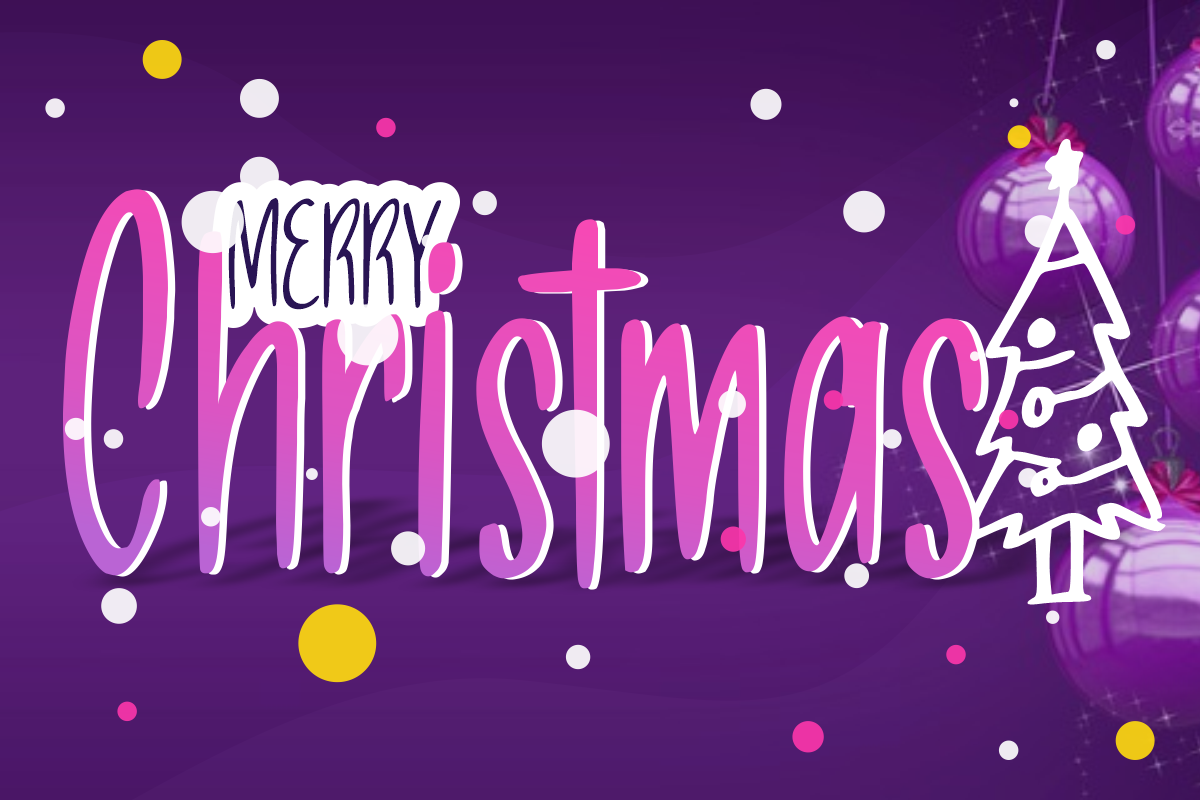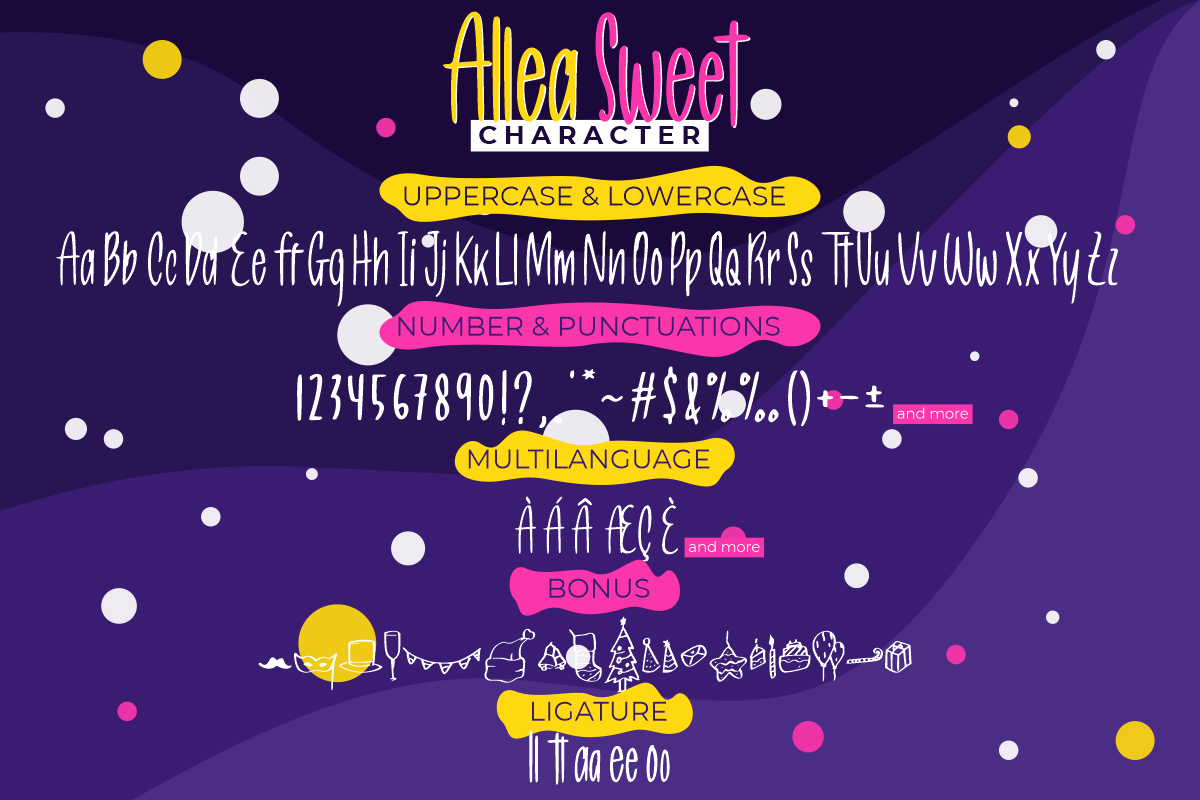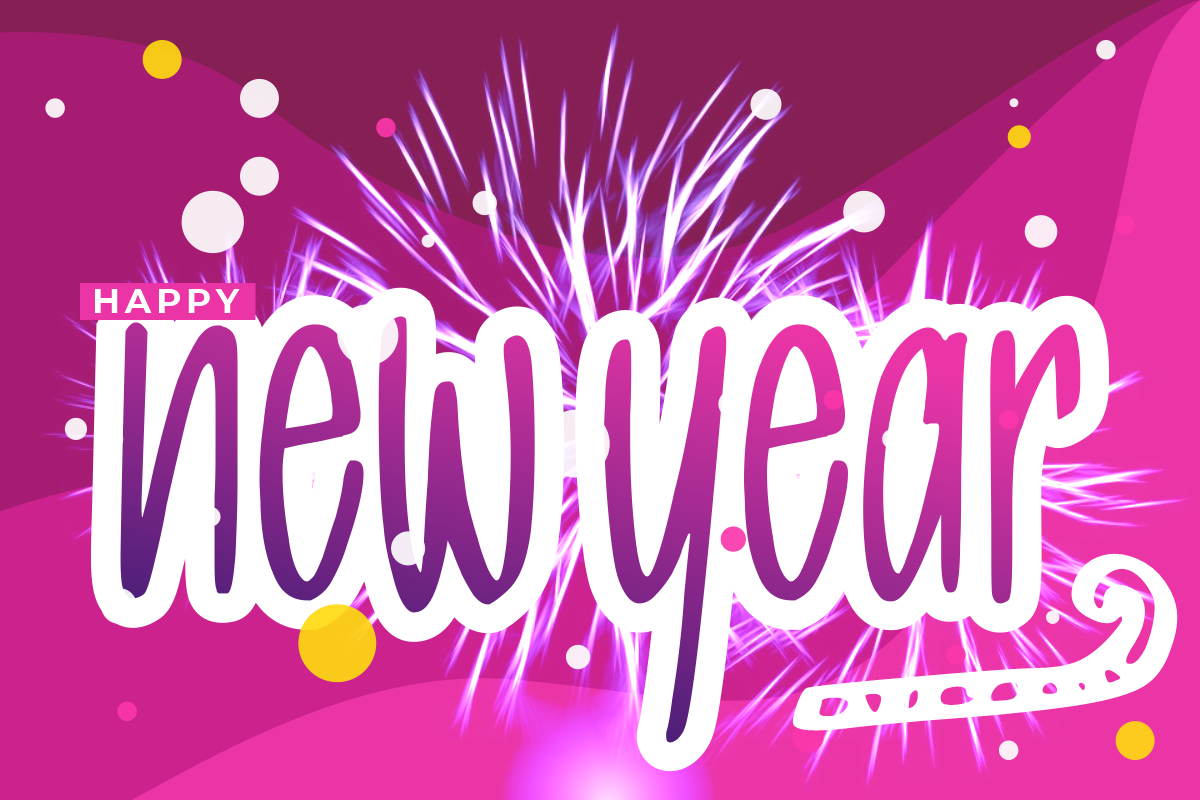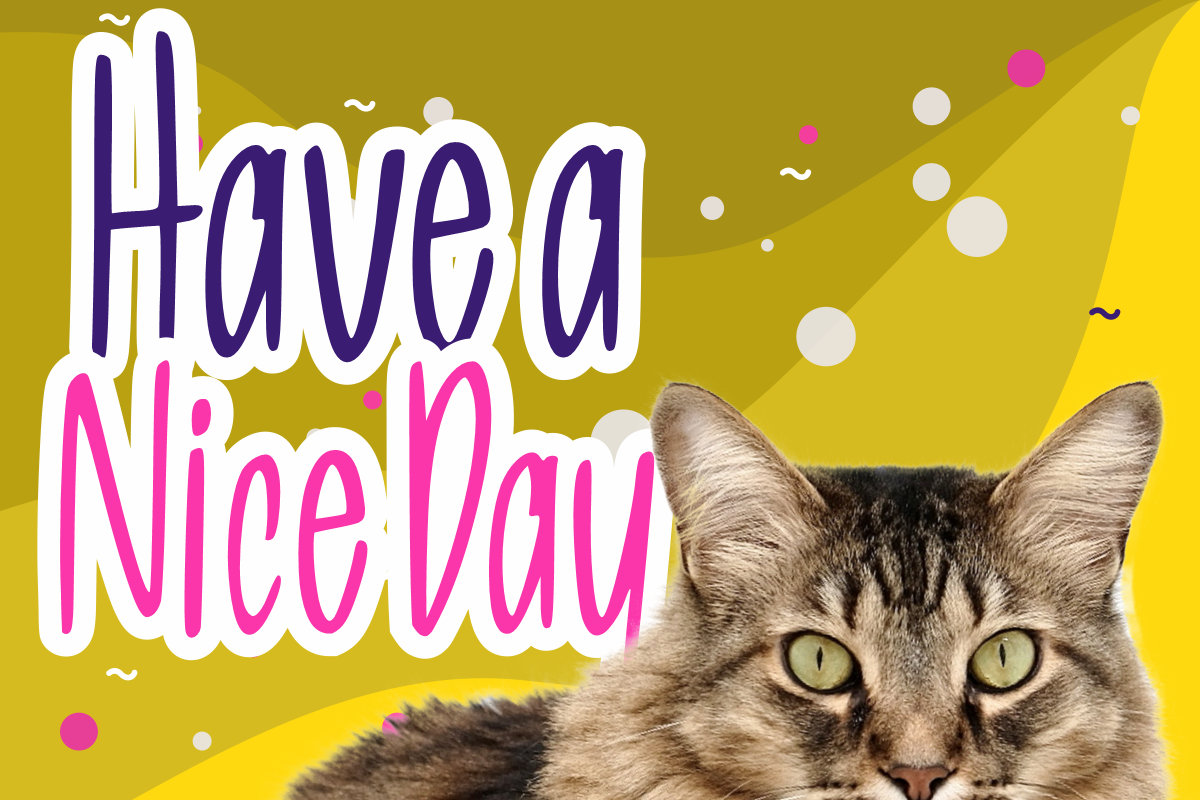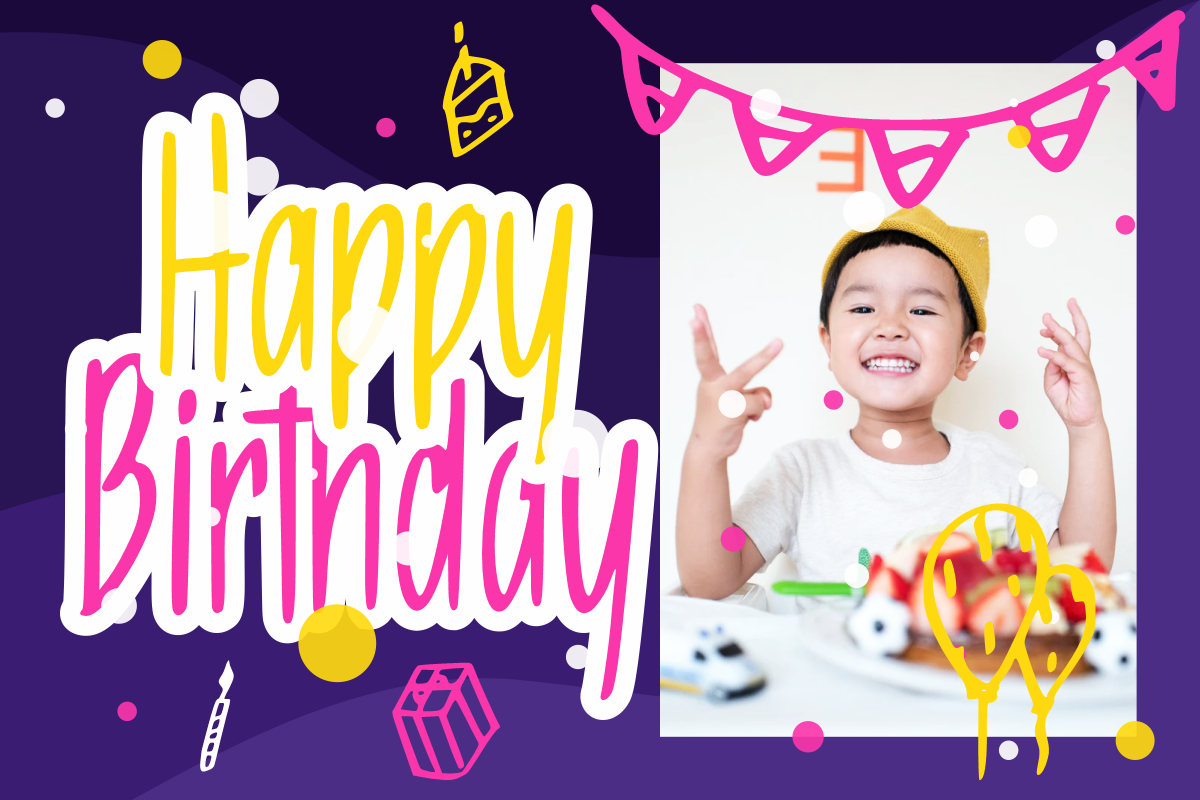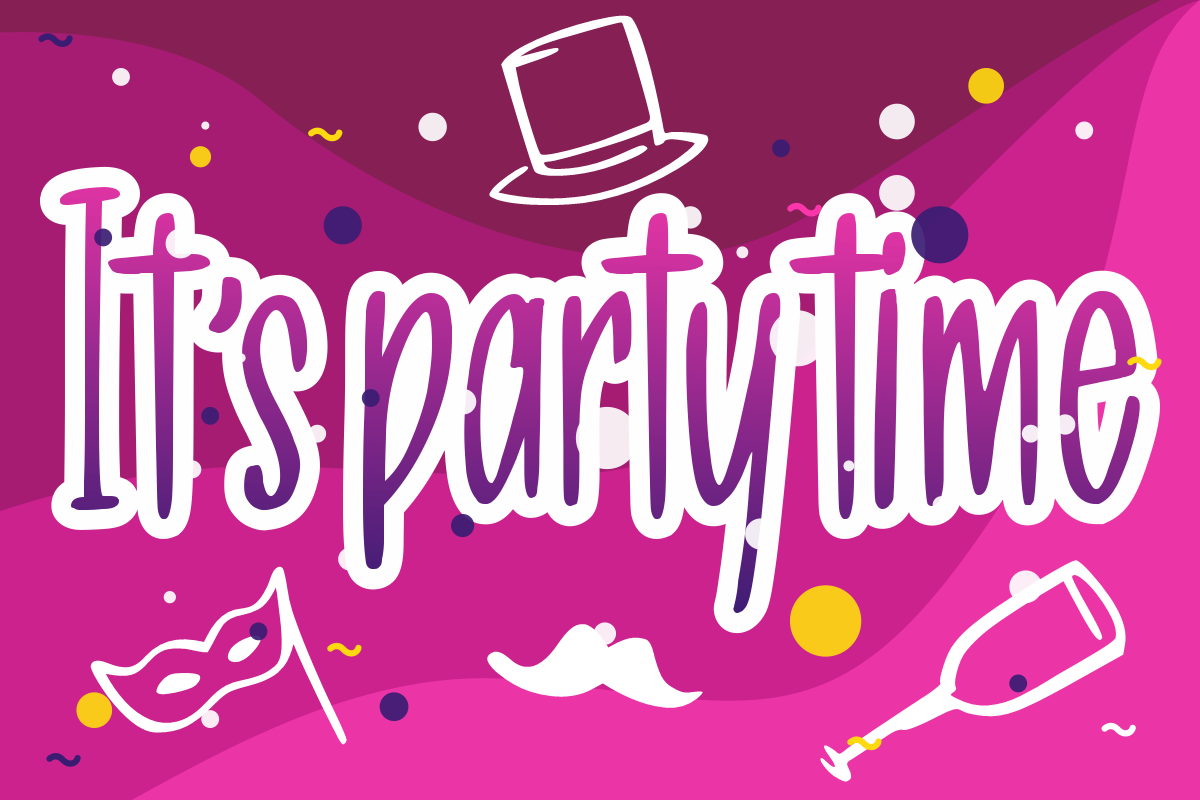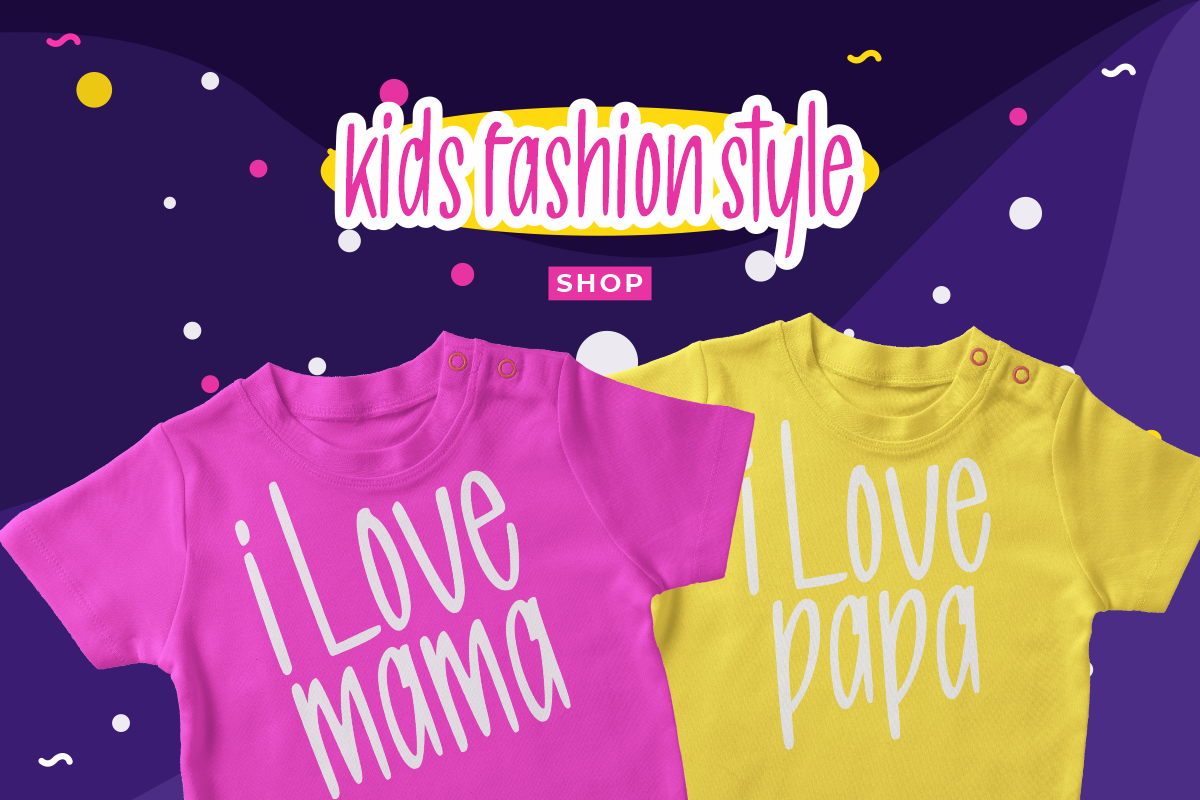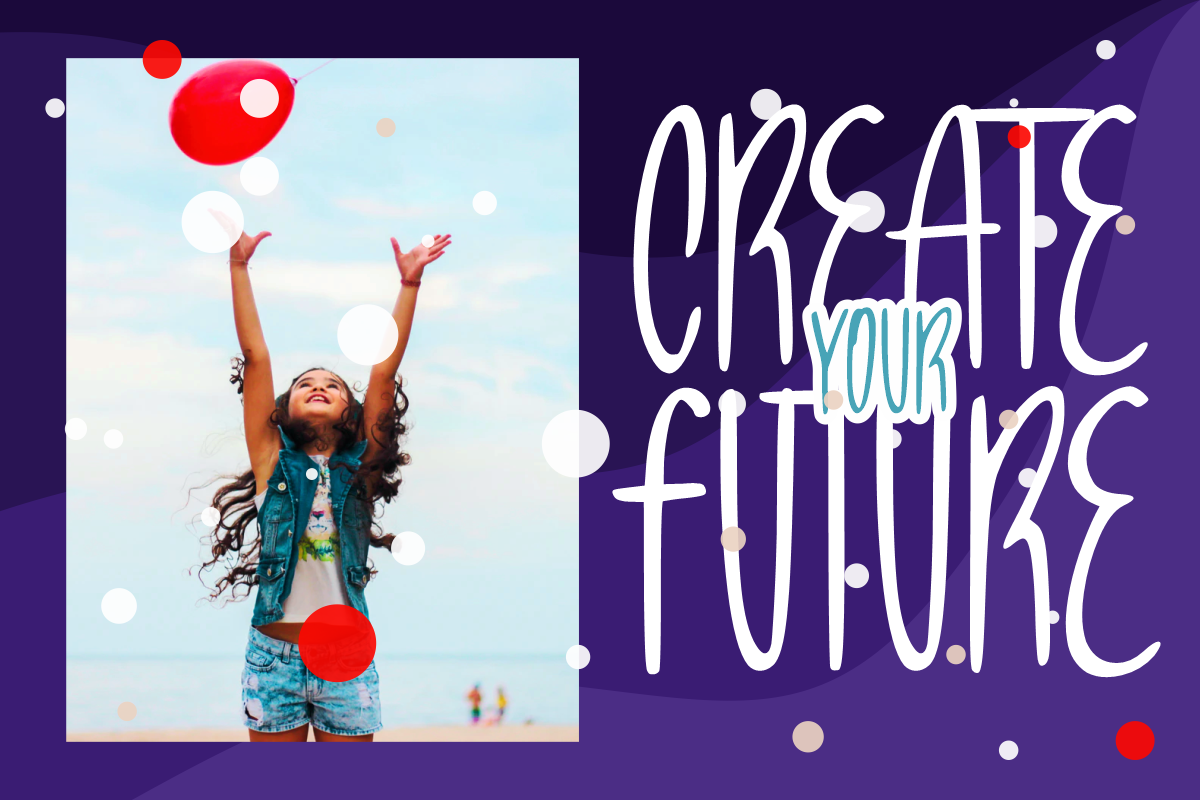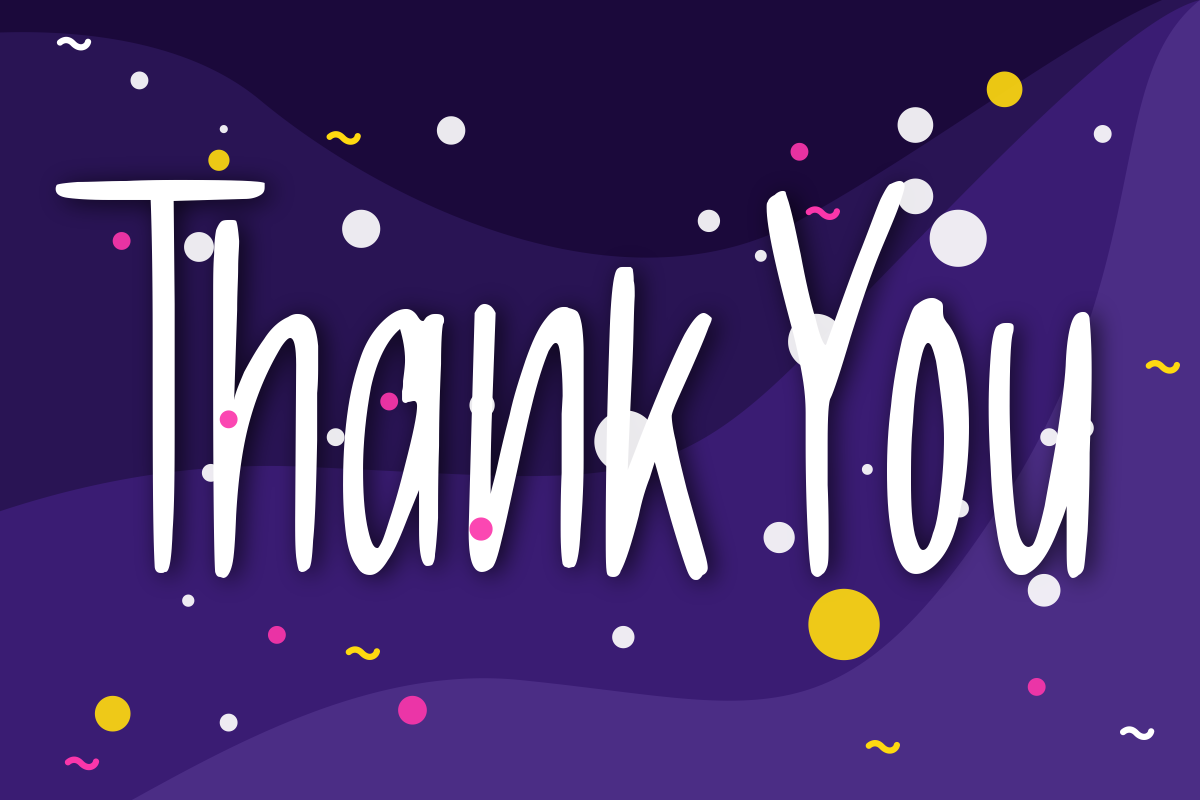
Allea Sweet Display Handwritten
AlleaSweet is a handwritten font that is easy to read and looks cheerful. You also get a bonus in the form of Doodles Party. This super cute font is perfect for cute design projects or themed parties, celebrations and kids.
Allea Sweet is perfect for tshirt, logos, poster, social media posts, advertisements, business cards, cover magazines, labels, photography, watermarks, invitations, stationery, and any projects that require cheerful writing tastes.
Font feature
Uppercase, Lowercase, Numerals & Punctuations, Ligature, Multilanguage